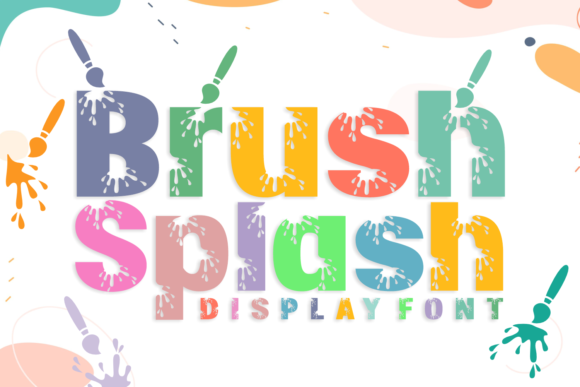
Unleashing the Joy of Creativity: Introducing Brush Splash Font Remember the excitement of splattering paint on a canvas, watching colors blend and merge in unexpected ways? That’s the magic of creativity, and that’s exactly what the Brush Splash Font is all about – capturing the essence of artistic expression in a font. 📸 Preview Gallery…